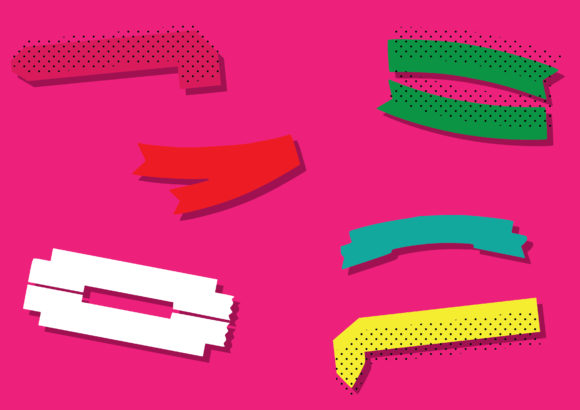
Yellow Dingbat Banners Font
Having a collection of lovely banners in a dingbats font can be incredibly useful for various design projects. The versatility and convenience of using a dingbats font allow you to quickly add decorative banners to your designs without the need for extensive manual drawing or designing. Here are some ways you can utilize this fun dingbats font with lovely banners:
1. Social Media Graphics: Create eye-catching social media posts by incorporating the lovely banners from the dingbats font. Use them as attention-grabbing elements to highlight important information, such as promotions, discounts, or announcements. Combine different styles and shapes of banners to add variety and visual interest to your graphics.
2. Website Headers: Enhance your website design by incorporating the lovely banners as headers or section dividers. They can serve as a visual element to separate different sections of your website, making it more organized and aesthetically pleasing. Experiment with different colors and arrangements to create a unique and engaging layout.
3. Logo Design: If you’re working on a logo design project, the lovely banners from the dingbats font can be a great addition. They can be used to frame or highlight the main logo text, adding a decorative touch and making your logo stand out. Customize the size, rotation, and color of the banners to create a logo that aligns with your brand identity.
4. Print Materials: Incorporate the lovely banners into print materials such as flyers, brochures, or posters. They can be used to draw attention to key information or as decorative elements to enhance the overall design. Mix and match different banner styles and shapes to create visually appealing compositions that align with the purpose of your print materials.
5. Scrapbooking and Crafting: If you enjoy scrapbooking or other crafting projects, the lovely banners can add a delightful touch to your creations. Use them to embellish photo albums, handmade cards, or journals. The variety of styles and shapes will allow you to experiment and create unique designs that reflect your personal style.
Remember to consider the overall theme and tone of your design when incorporating the lovely banners. Play around with different combinations and layouts to find the arrangement that best suits your project. Enjoy the creative process and let the versatility of the dingbats font help you quickly achieve your design goals!